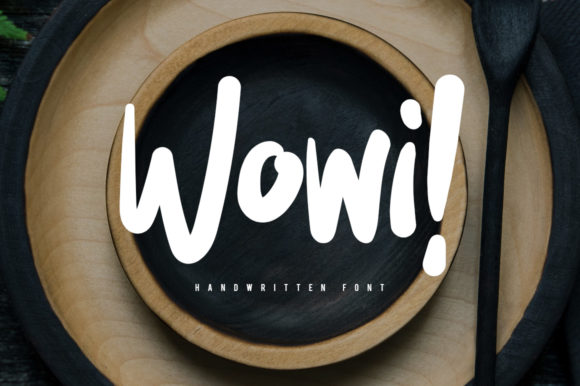
In a world of digital expression, where words take flight and visuals captivate, allow us to introduce Wowi Font, the ultimate display font that will revolutionize your branding endeavors. Crafted with meticulous care by Maulana Creative, this font is a symphony of fun and joy, ready to elevate your designs to breathtaking heights.
Wowi Font is not just a font; it's an experience. Its playful brush strokes, reminiscent of a carefree artist's hand, will infuse your projects with an irresistible charm. Whether you're a seasoned designer seeking to make a statement or a budding entrepreneur looking to establish a lasting impression, Wowi Font is your perfect companion.
With Wowi Font, you'll discover a world of endless possibilities. Its versatility knows no bounds, effortlessly adapting to a myriad of creative endeavors. From eye-catching logos that demand attention to captivating social media graphics that ignite engagement, Wowi Font will transform your ideas into stunning realities.
Embrace the allure of Wowi Font and watch as your designs blossom into masterpieces. Its friendly and approachable nature will resonate with audiences of all ages, leaving an enduring impact that sets you apart from the ordinary. Dare to be bold, dare to be different, and let Wowi Font ignite the spark of creativity within you.
As you embark on this journey of visual storytelling, Wowi Font will be your steadfast guide, helping you articulate your brand's essence with unparalleled clarity and impact. Its charismatic personality will infuse your designs with a vibrancy that captivates and enchants.
So, dive into the world of Wowi Font and unlock a treasure trove of creative possibilities. Let your imagination soar, let your designs shine, and let Wowi Font be the catalyst that propels your brand to new heights of success. Embrace the extraordinary and make a statement that resonates far and wide. Welcome to the world of Wowi Font, where creativity knows no limits.